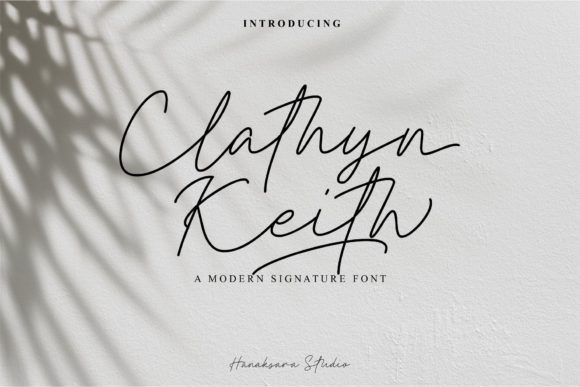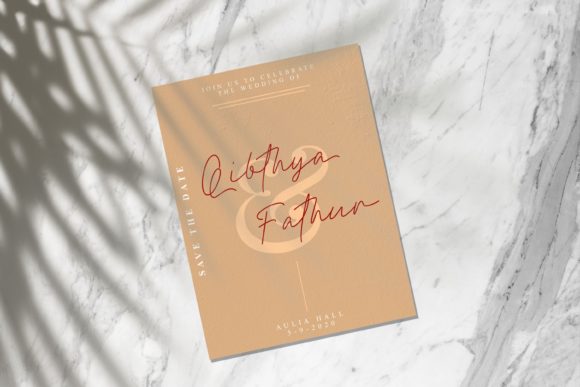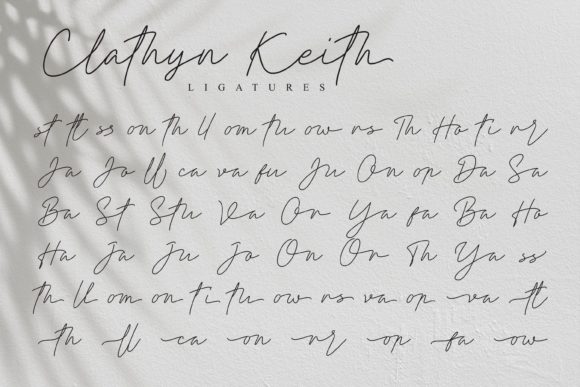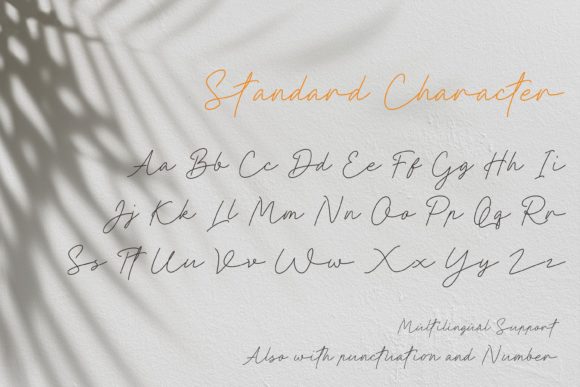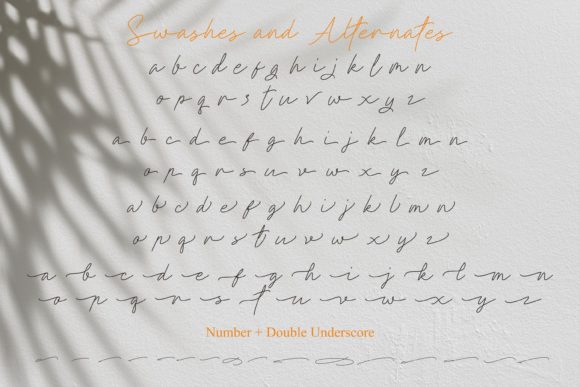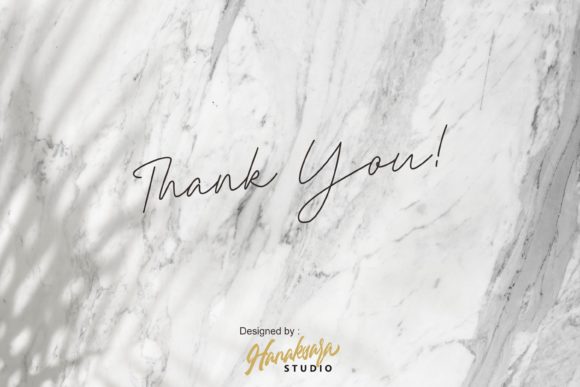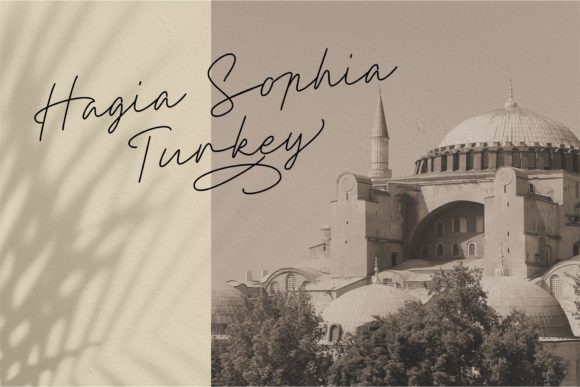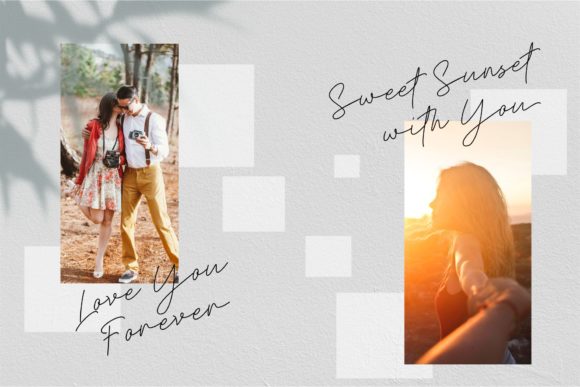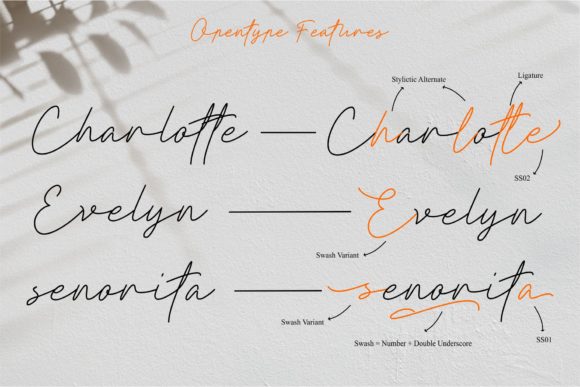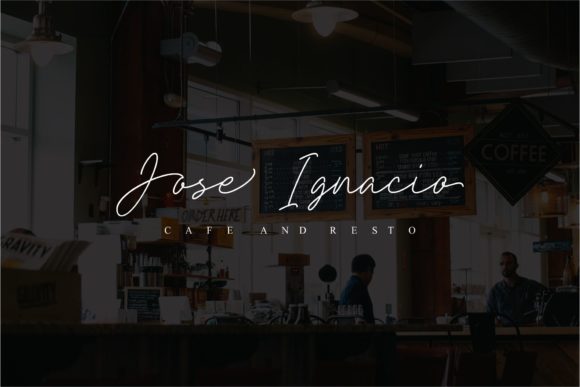
Clathyn Keith Signature Font
About Clathyn Keith Signature Font
Clathyn Keith Signature is a sweet and cool script with a unique style. Get inspired by its light and subtle charm.